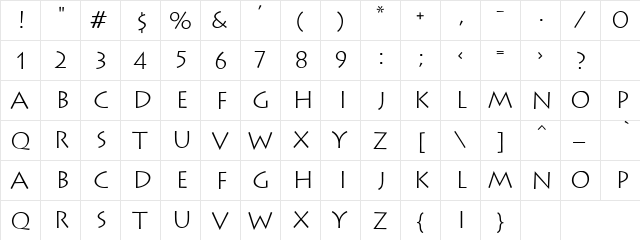
Lithos Regular Font Preview
Lithos Regular
Lithos Regular Font Details
Design Context for Lithos Typeface
Lithos offers clean, dependable letterforms without strong stylistic allegiance, making it a practical choice for designers who need flexibility.
Pro Tip: Use Lithos in both headline and body roles to test its range before committing to a single application.